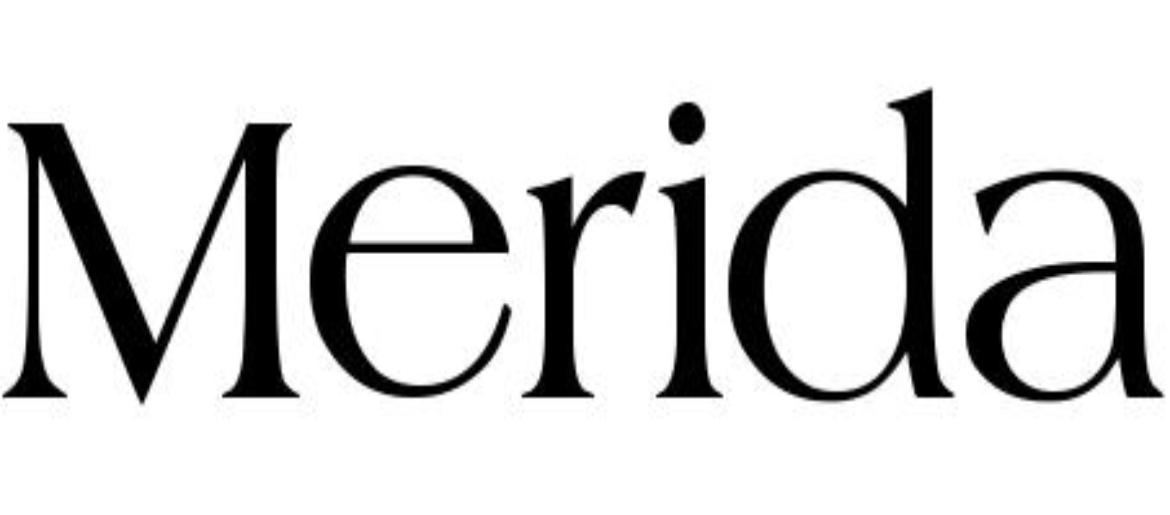
Merida Font
The Merida Font blends elegance with adventure, reflecting both modern sophistication and traditional charm. Its bold yet graceful design captures a sense of confidence and creativity, making it a versatile choice for a wide range of design applications. The typeface balances smooth curves with a strong visual presence, giving it a refined yet approachable feel. Ideal for branding, posters, or editorial work, the Merida Font brings a polished, culturally rich aesthetic that resonates with both contemporary and classic design styles.
Merida Font
Merida Regular Font Sample
Designers appreciate the Merida Font for its balance of readability and style. Its fluid strokes and subtle detailing make it suitable for both display and text settings, offering a professional yet expressive tone. Whether used for elegant logos, editorial layouts, or digital content, it maintains a sense of cultural depth and visual harmony.
About Merida
The name *Merida* evokes adventure and heritage, shared by several cities around the world known for their cultural richness and historical beauty. The font captures that same spirit—bold, vibrant, and full of character. It’s a typeface designed to stand out while maintaining grace, making it an excellent choice for designers who seek a blend of artistry and modern professionalism.